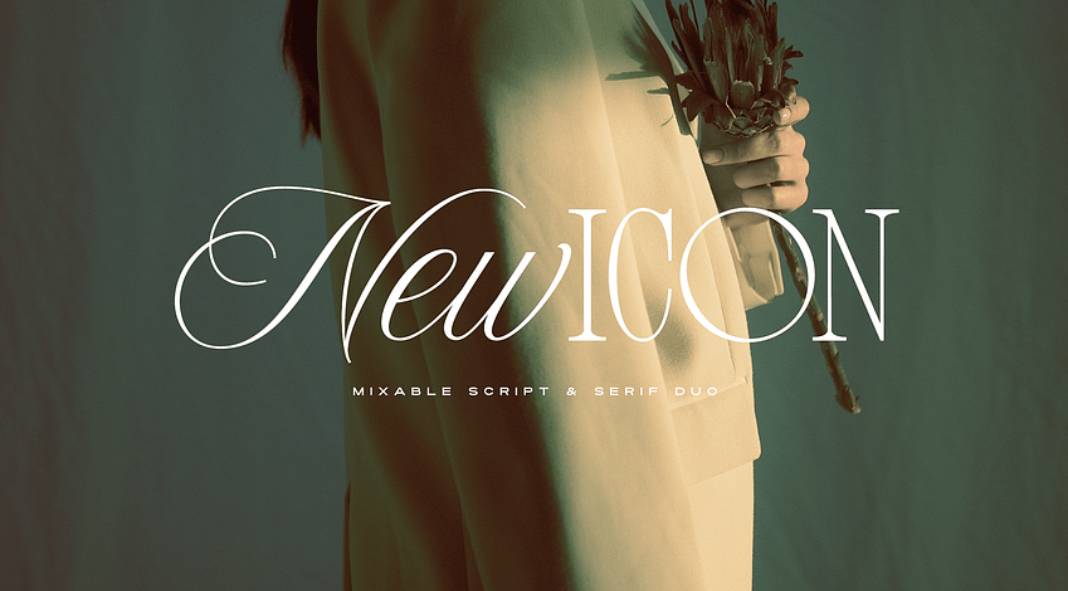
New Icon is a display serif and modern calligraphy font family.
The New Icon font duo by Sam Parrett is finally here! This luxurious script and timeless serif come together flawlessly—and they look great whether used separately or placed side-by-side. Feeling creative? You can even mix them up within the same word for a more attention-grabbing layout. In other words, you now have a versatile set of fonts that can be employed and loved across all sorts of design projects.
The New Icon Script is a lovely, cursive script font that contains both upper and lowercase characters. This beautiful letter set was inspired by traditional calligraphy and can be used alone or in tandem with another serif font. To access the alternate lowercase letters ‘y’ and ‘g’ with elongated tails, simply turn on ‘Stylistic Alternates’ or go to the Glyphs panel.